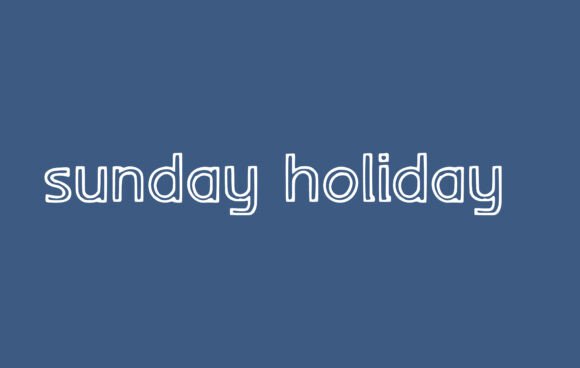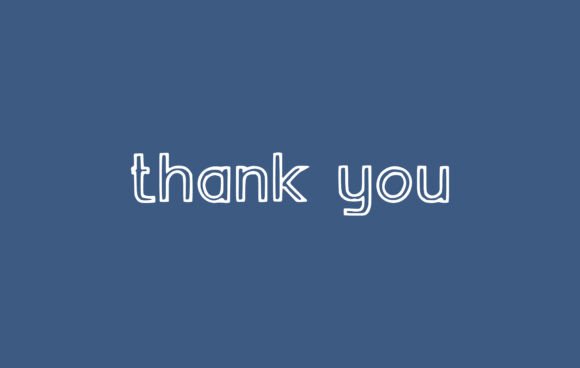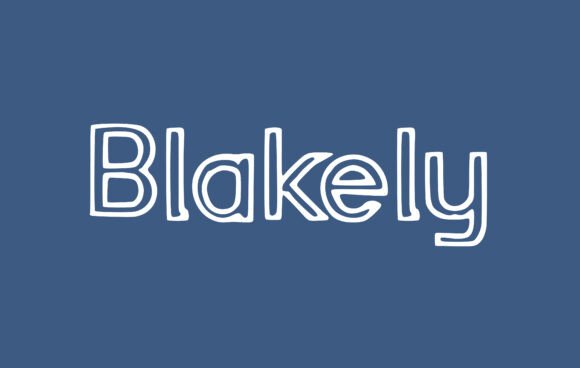
Introducing Blakely Font: The Friendly and Modern Sans-Serif for Creative Projects
Are you a designer, crafty enthusiast, or educator looking for a font that embodies a friendly and modern spirit? Look no further than Blakely Font, a soft, outlined sans-serif typeface that’s perfect for a variety of creative projects. With its clean, rounded forms and subtle line work, Blakely exudes a fun, youthful personality that’s sure to capture the attention of your audience.
What Makes Blakely Font So Special?
Blakely Font is designed to bring a sense of approachability and playfulness to your designs. Its soft, outlined style gives it a unique and distinctive look that’s both modern and engaging. The clean, rounded forms of the font make it easy to read, while the subtle line work adds a touch of sophistication and elegance. Whether you’re creating educational tools, classroom decor, kids’ apparel, or branding materials, Blakely Font is the perfect choice.
Perfect for Educational Tools and Classroom Decor
Blakely Font is an excellent choice for educational tools and classroom decor. Its friendly and approachable design makes it perfect for materials aimed at children, such as worksheets, activity sheets, and educational posters. The font’s clean and easy-to-read style ensures that students can focus on the content, while the fun and playful personality of the font adds a touch of excitement to the learning process.
Kids’ Apparel and Branding
Blakely Font is also an excellent choice for kids’ apparel and branding materials. The font’s youthful and playful personality makes it perfect for t-shirts, hoodies, and other clothing items aimed at children. Additionally, the font’s clean and modern style ensures that your branding materials, such as logos and business cards, look professional and visually appealing.
Why Choose Blakely Font?
There are many reasons why Blakely Font stands out from other typefaces. Here are just a few:
- Unique and distinctive design: Blakely Font’s soft, outlined style gives it a unique and distinctive look that’s sure to capture attention.
- Clean and easy to read: The font’s clean, rounded forms make it easy to read, even at small sizes.
- Fun and youthful personality: Blakely Font’s playful and approachable design makes it perfect for materials aimed at children.
- Versatile: The font is suitable for a wide range of creative projects, from educational tools to kids’ apparel and branding materials.
Tips for Using Blakely Font
Here are a few tips for using Blakely Font in your creative projects:
- Pair with bold colors: Blakely Font looks great paired with bold, bright colors that match its playful and youthful personality.
- Use in combination with images: The font’s clean and modern style makes it perfect for use in combination with images and illustrations.
- Experiment with different sizes: Blakely Font looks great at a variety of sizes, from small headings to large display text.
Blakely Font is a friendly and modern sans-serif typeface that’s perfect for a wide range of creative projects. Its clean, rounded forms and subtle line work give it a fun, youthful personality that’s sure to capture the attention of your audience. Whether you’re a designer, crafty enthusiast, or educator, Blakely Font is an excellent choice for educational tools, classroom decor, kids’ apparel, and branding materials. So why not give Blakely Font a try and see how it can add a touch of fun and personality to your designs?